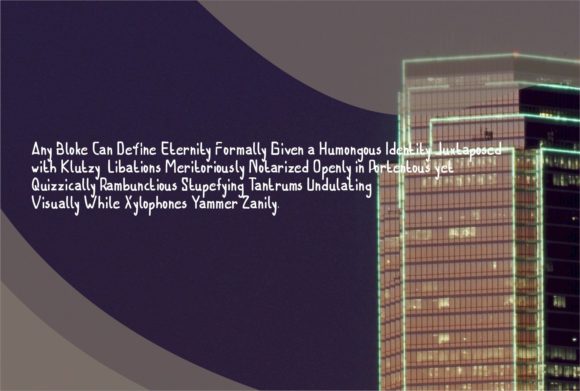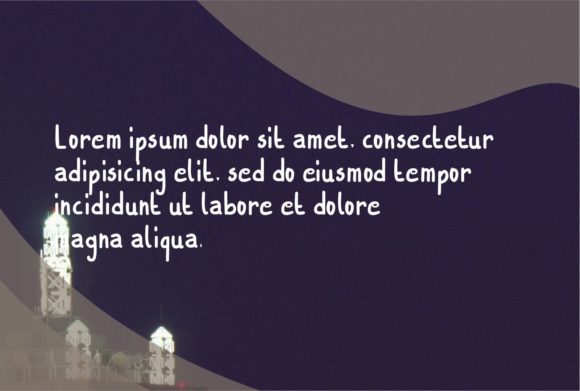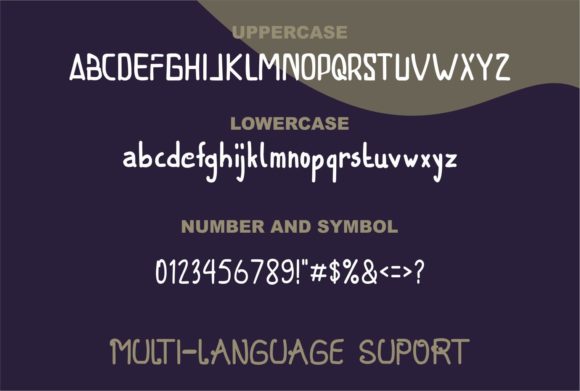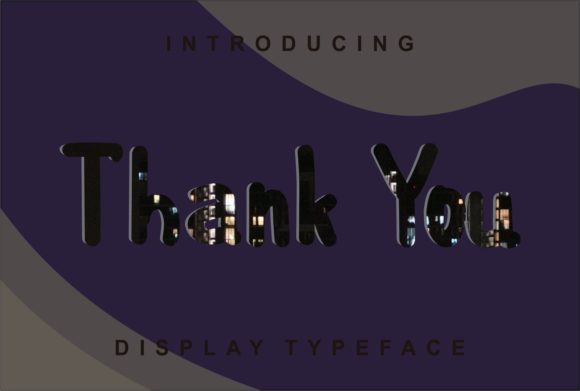
Introducing Emperor Font: Elevate Your Designs with Elegance and Versatility
In the world of typography, a font can make or break a design. For designers and crafters looking for a clean, adaptable, and stunning display font, Emperor Font is an exceptional choice. This versatile font is perfect for a wide range of applications, from posters and flyers to prints and digital media. In this article, we’ll explore the features and benefits of Emperor Font, and how it can elevate your designs to new heights.
Clean and Adaptable Design
Emperor Font boasts a clean and modern design that exudes elegance and sophistication. Its adaptability makes it suitable for various design projects, allowing you to experiment with different styles and themes. The font’s clean lines, precise curves, and balanced proportions create a visually appealing effect that will capture the attention of your audience.
Whether you’re a professional designer or a crafty DIY enthusiast, Emperor Font offers endless possibilities for creative expression. Use it to:
- Create stunning posters and flyers for events, promotions, or announcements
- Design eye-catching prints, such as business cards, brochures, or menus
- Develop engaging digital content, like social media graphics, blog posts, or email newsletters
- Enhance your brand identity with a unique and recognizable typography
Why Choose Emperor Font?
With so many fonts available, why should you choose Emperor Font for your designs? Here are a few compelling reasons:
- Uniqueness: Emperor Font’s distinctive design sets it apart from more traditional fonts, giving your designs a fresh and modern look
- Legibility: The font’s clean lines and balanced proportions ensure excellent legibility, even at smaller sizes
- Flexibility: Emperor Font is suitable for a wide range of design projects, from print to digital media
Tips for Getting the Most Out of Emperor Font
To maximize the potential of Emperor Font, consider the following tips:
- Experiment with font sizes: Emperor Font looks great at various sizes, from large display fonts to smaller body text
- Play with colors and textures: The font’s clean design allows it to work well with different colors and textures, so don’t be afraid to get creative
- Mix and match with other fonts: Emperor Font pairs well with other fonts, making it easy to create visually appealing combinations
Emperor Font is a versatile and stunning display font that can elevate your designs to new heights. Its clean and adaptable design makes it perfect for a wide range of applications, from posters and flyers to prints and digital media. With its endless possibilities, ease of use, and unique features, Emperor Font is an excellent choice for designers and crafters looking to add a touch of elegance and sophistication to their work. So why wait? Explore the possibilities of Emperor Font today and take your designs to the next level!